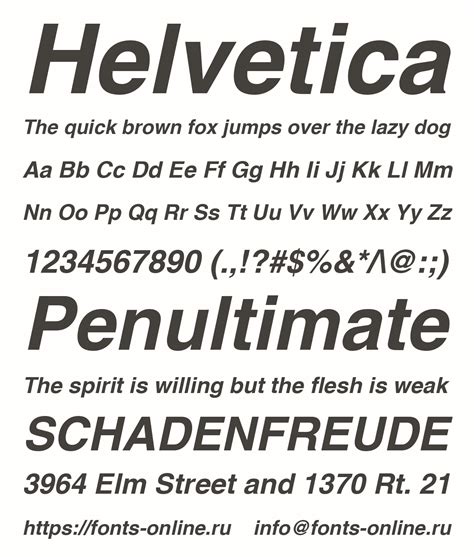
Best Letter X Fonts for Stylish Typography
Readers, have you ever noticed how certain fonts just seem to pop out at you, capturing your attention and making you want to read more? Maybe you've even tried experimenting with different fonts, trying to find the perfect one for your website, blog posts, or even your personal branding. But let's be honest, choosing the right font can be a real challenge, especially when it comes to finding the perfect Letter X font. The “X” is a powerful letter in the alphabet. It’s a symbol of strength and can be used to create some stunning typographic designs.
Don't worry, you're not alone! I've been exploring the world of fonts for years and have analyzed countless Letter X fonts to help you find the best ones for your creative endeavors. So, join me on a journey to discover the most stylish Letter X fonts that will elevate your typography game and make your designs truly stand out.
The Power of Letter X Fonts in Typography
Letter X fonts are a unique category of typography that focuses on the letter “X” as a prominent design element. These fonts often feature a bold, distinct "X" that can be used to create eye-catching and memorable visual effects. Whether you’re looking to add a touch of elegance, a splash of whimsy, or a dose of personality, Letter X fonts have something to offer.
The Appeal of Distinctive "X" Designs
The distinctive "X" design is often the focal point of these fonts, making them instantly recognizable and visually captivating. This can be especially useful for logos, branding, and other designs where you want to create a strong visual impression.
Versatility in Different Design Styles
Letter X fonts are surprisingly versatile. They can be incorporated into a wide range of design styles, from minimalist and modern to bold and playful. This allows you to find the perfect Letter X font to complement your existing design aesthetic.
Creating Unique Visual Identities
The use of Letter X fonts can help you create a unique visual identity that sets your brand apart. By embracing the bold and eye-catching nature of these fonts, you can establish a distinctive look and feel that resonates with your target audience.
Exploring the Most Stylish Letter X Fonts
Now that we've established the appeal of Letter X fonts, let's dive into some of the most stylish and versatile options available. Prepare to be inspired by the unique designs and creative potential of these fonts.
1. Futura
Futura is a geometric sans-serif typeface that has been a popular choice for everything from branding and packaging to magazines and websites. It has a clean, modern aesthetic that exudes confidence and sophistication. Futura is a great example of a font with a strong “X” that makes it stand out.
2. Helvetica
Helvetica is another iconic sans-serif typeface known for its versatility and readability. It’s a classic choice for corporate branding, publications, and digital interfaces. The "X" in Helvetica is bold and distinct, complementing the clean and simple lines of the font.
3. Avenir
Avenir is a sophisticated and versatile sans-serif typeface that has found its way into numerous design projects. It’s known for its balanced proportions and clear, legible characters. Avenir's "X" is well-shaped and stands out, adding a subtle touch of prominence to the font.
4. Gotham
Gotham is a geometric sans-serif typeface that has gained popularity due to its modern and urban aesthetic. It’s often used in branding, editorial design, and web design. The "X" in Gotham is bold and strong, reflecting the font's contemporary and edgy feel.
5. Gill Sans
Gill Sans is a humanist sans-serif typeface that combines readability with a distinctive personality. It's known for its versatility and ability to work well in both print and digital applications. The "X" in Gill Sans is well-proportioned and complements the font's overall elegant and sophisticated look.
6. Univers
Univers is a widely recognized sans-serif typeface that offers a wide range of weights and styles. It's known for its versatility and ability to adapt to different design contexts. The "X" in Univers is balanced and elegant, making it suitable for branding, editorial design, and display purposes.
7. Museo Sans
Museo Sans is a contemporary sans-serif typeface that is both stylish and versatile. It's known for its clean, geometric shapes and its ability to work well in both large and small sizes. The "X" in Museo Sans is bold and confident, adding a touch of strength to the font's overall aesthetic.
8. Open Sans
Open Sans is a widely popular sans-serif typeface designed for readability and accessibility. It's a great choice for web design, mobile interfaces, and print materials. The "X" in Open Sans is well-shaped and complements the font's overall friendly and approachable feel.
9. Roboto
Roboto is a geometric sans-serif typeface developed by Google. It's known for its readability and its clean, modern aesthetic. The "X" in Roboto is well-proportioned and complements the font's overall minimalist and uncluttered look.
The perfect Letter X font can elevate your typography game and add a touch of personality, elegance, or boldness to your design. By exploring the options available, embracing best practices, and understanding the power of the letter “X,” you can create truly impactful and memorable designs that will leave a lasting impression. So go ahead and experiment with those stylish Letter X fonts! Don't forget to check out our other articles on font pairing tips and design trends for even more inspiration!